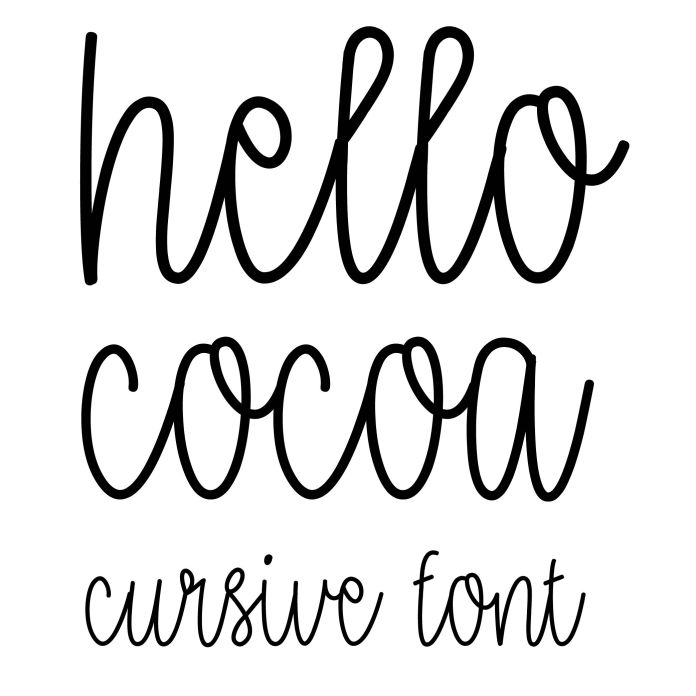
Hello cocoa cursive font
Hello Cocoa is a sweet little handwritten cursive font for personalization projects, cards, gifts, monograms, planners, calendars, and crafts.